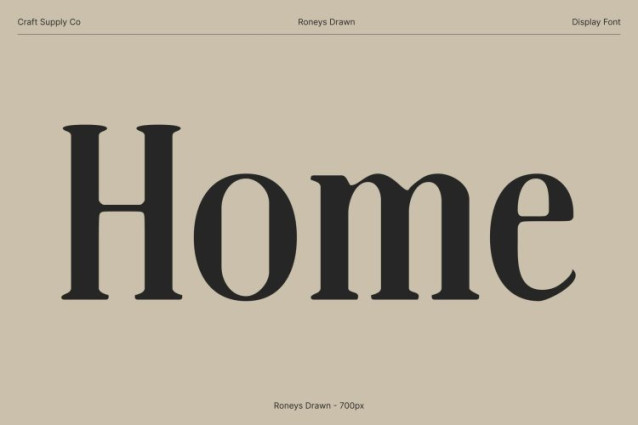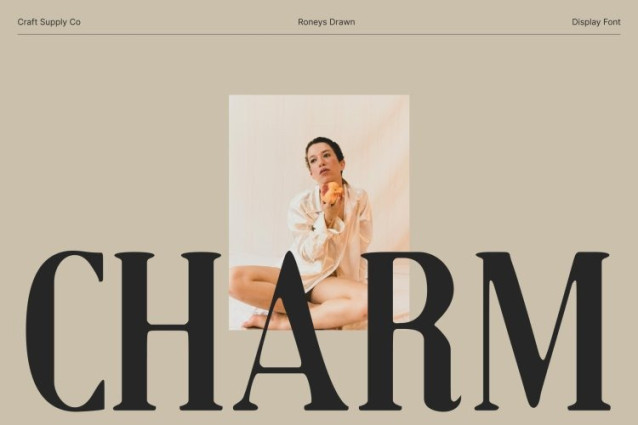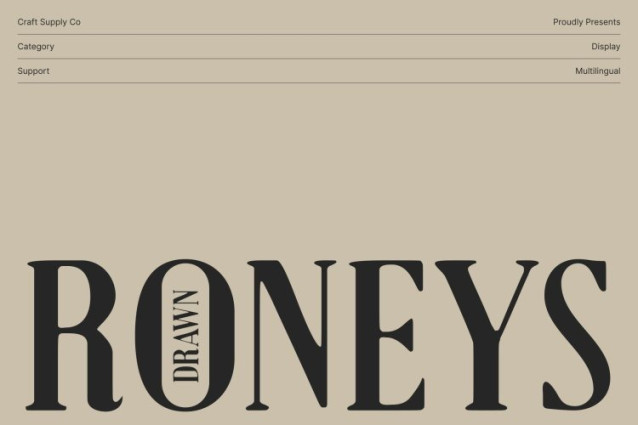
Roneys Drawn Font
Roneys Drawn Font This font brings together the sophistication of classic serif typography and the clarity of modern design, creating a balanced and versatile display font. Its refined serif structure adds a sense of tradition and elegance, while the clean, updated shapes give it a fresh and contemporary appeal.
Artistic Drawn Texture for Expressive Character
The drawn effect adds a unique handcrafted texture across every letter, giving the font an artistic and expressive feel. These subtle irregularities create visual warmth and personality, making the typeface stand out with an authentic handmade touch.
Ideal for Luxurious and Creative Branding
With its modern serif shape and artistic flare, this font is well-suited for luxury branding, high-end packaging, and elegant identity design. Its expressive texture helps communicate style, exclusivity, and creativity, making it a powerful asset for brands seeking a refined yet distinctive visual presence.
Perfect for Editorials, Posters, and Artistic Projects
This font also shines in editorial layouts, posters, and creative compositions. Its bold display nature commands attention, while the drawn effect introduces a layer of depth and artistic nuance. From magazine headlines and visual storytelling to expressive posters and contemporary art projects, this font brings character, elegance, and a handcrafted charm that enriches any design.